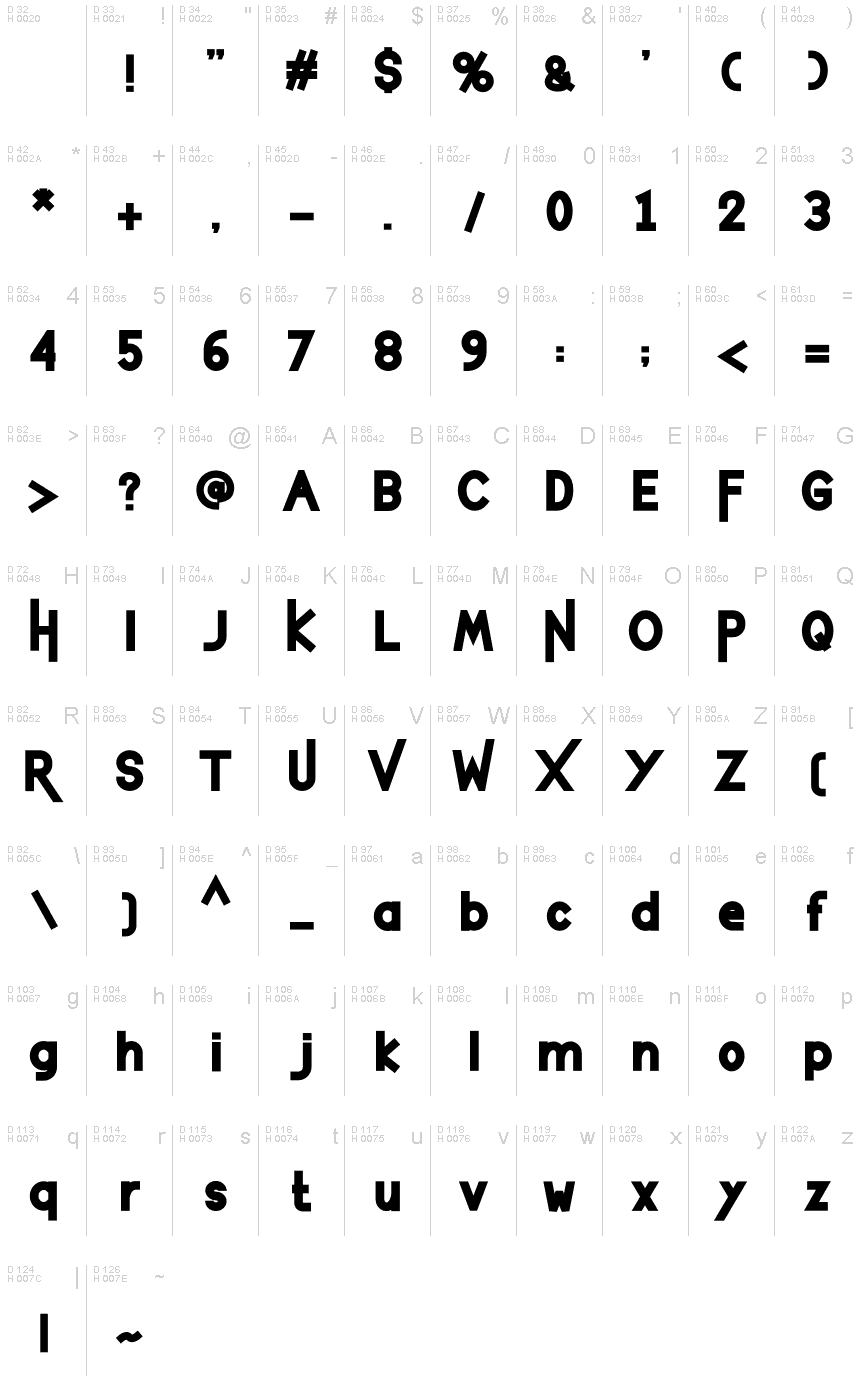
Sport Bold
Sport Bold is a striking and dynamic font designed by the talented Design Vector10. With its bold weight and clean lines, this font is perfect for sports-related projects that need to convey energy, power, and excitement.
Whether you're creating a logo for a sports team, designing posters for sporting events, or developing a website for a fitness brand, Sport Bold will make your text stand out and grab attention. Its versatility also extends to other design projects like packaging, branding materials, and magazine layouts that require a strong and impactful typeface.